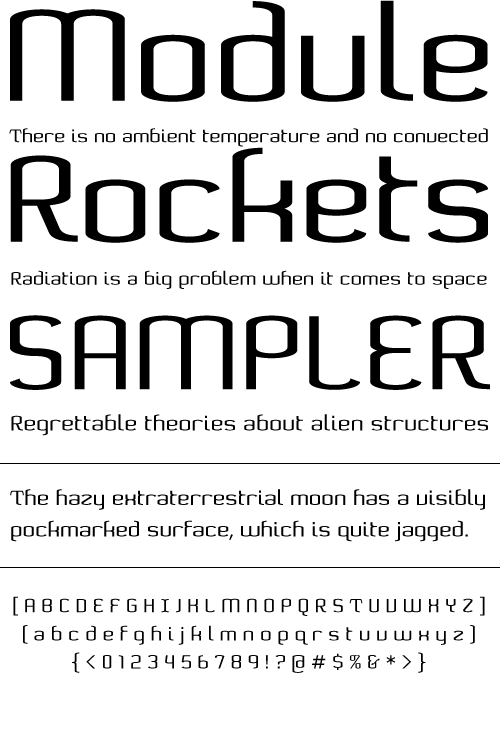
Lunarmod
Lunarmod is an attempt at creating a full font from a single basic shape, a box with oval ends. It ended up being very modular and looks slightly alien or spacey, hence the name Lunarmod.